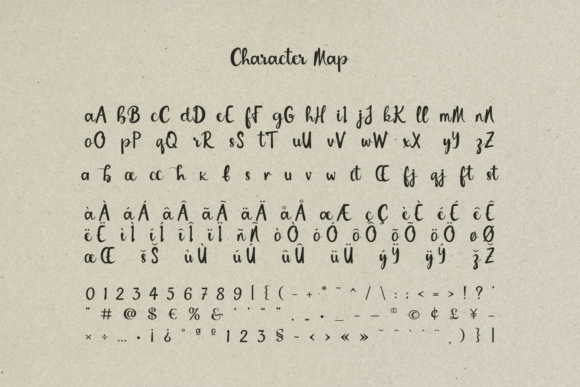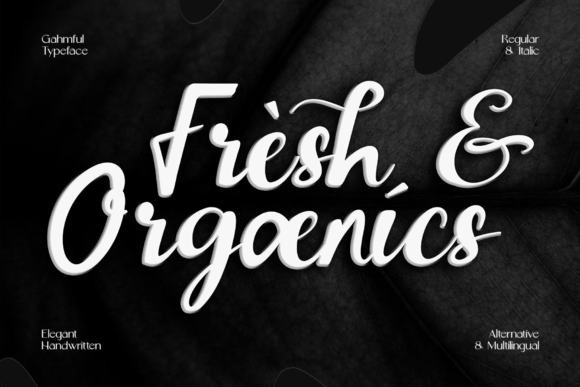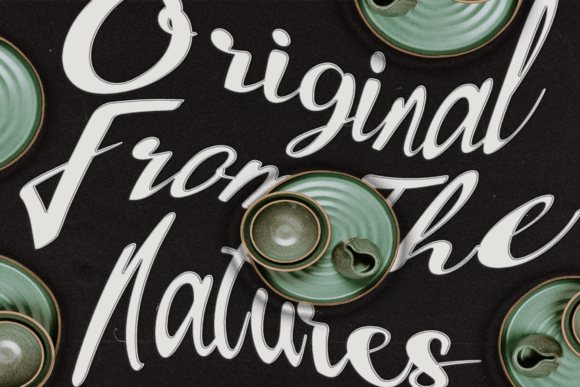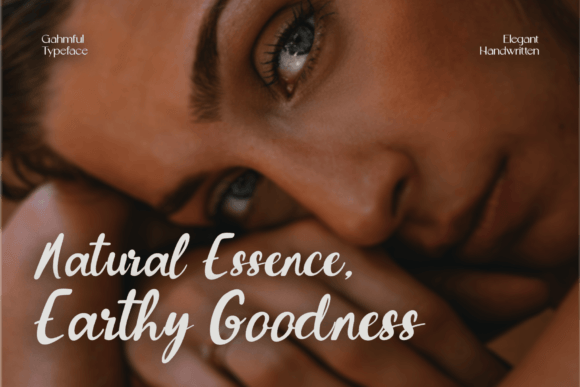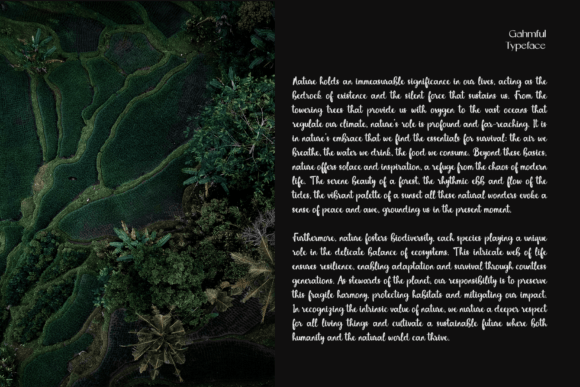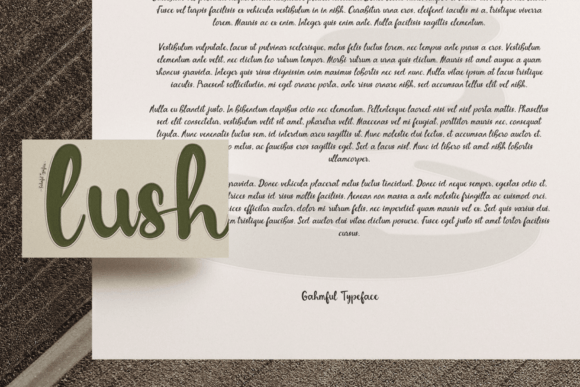
Introduction to Gahmful Font
As a designer, there’s nothing quite like the thrill of bringing a creative project to life. The moment when your ideas start to take shape, and you see your vision unfold on the screen. For many of us, this moment is made even sweeter when we can add that special something – a unique touch that sets our designs apart from the rest. And that’s exactly what the Gahmful Font offers.
With its bold and expressive handwritten style, Gahmful Font combines modern flair with classic charm, making it the perfect addition to any design project. Whether you’re working on a high-quality brochure or a free download for a transparent background, this versatile font is sure to bring a touch of elegance and sophistication to your work.
Key Features of Gahmful Font
- Includes a range of characters and glyphs to cater to diverse design needs
Honest Review: Gahmful Font
I recently stumbled upon the Gahmful Font, and I must say it’s a great addition to any designer’s toolkit. This free download is perfect for creative projects that require a unique and elegant touch. One of the standout features of the Gahmful Font is its versatility – it works beautifully with both light and dark backgrounds, and even looks stunning with a transparent background. ✨
The font is available in a range of weights and styles, making it easy to find the perfect match for your design. I was impressed with the level of detail and craftsmanship that has gone into creating this high-quality font. It’s clear that the designers have put a lot of thought into ensuring that it’s both aesthetically pleasing and functional.
However, there are a few limitations to consider. For example, the font may not be suitable for projects that require a bold, attention-grabbing font. Additionally, some users may find the font’s lines and curves a bit too delicate for their taste. ⚠️
Overall, I’m thoroughly impressed with the Gahmful Font. It’s a valuable resource for designers who are looking for a high-quality, elegant font that can elevate their creative projects. I’d definitely recommend giving it a try!
- High-quality, elegant design
- Works well with light and dark backgrounds, including transparent backgrounds
- Available in a range of weights and styles
How to Use Gahmful Font
The Gahmful Font is a versatile and high-quality design resource ideal for creative projects. It features a transparent background, making it perfect for overlaying on images or videos.
Tips for Getting the Most Out of Gahmful Font
For the best results, use the Gahmful Font in conjunction with high-quality images and graphics. You can also experiment with different font sizes and styles to create unique and eye-catching designs.
The Gahmful Font is ideal for use in a variety of creative projects, including logos, brochures, and social media graphics. It’s also perfect for use in presentations and reports.